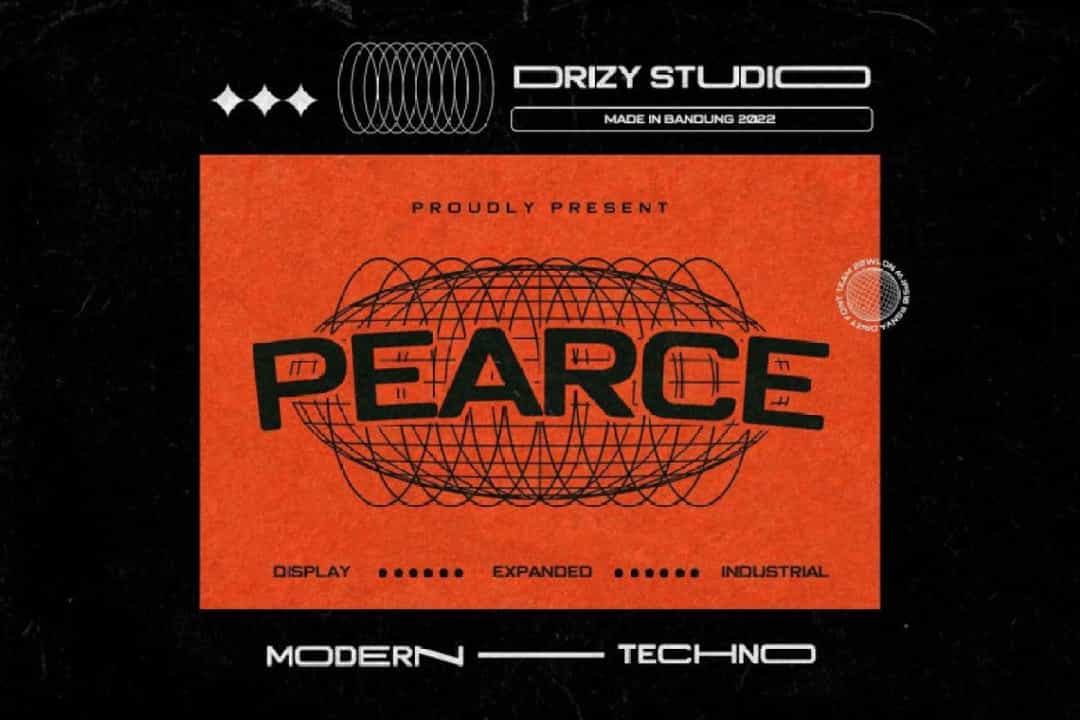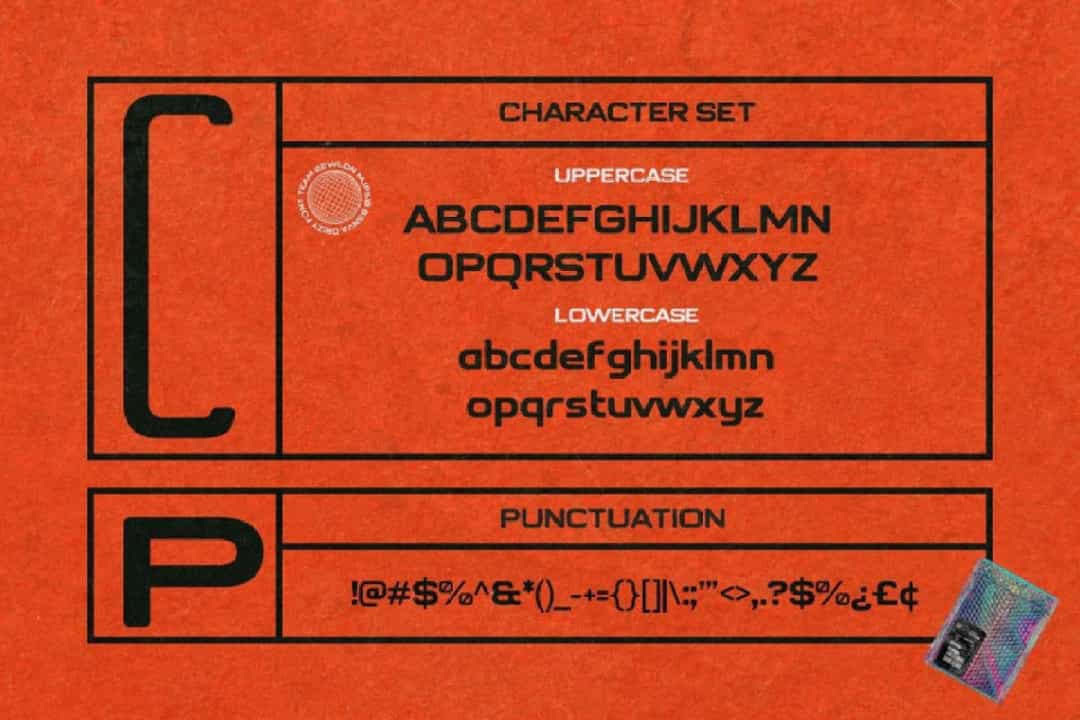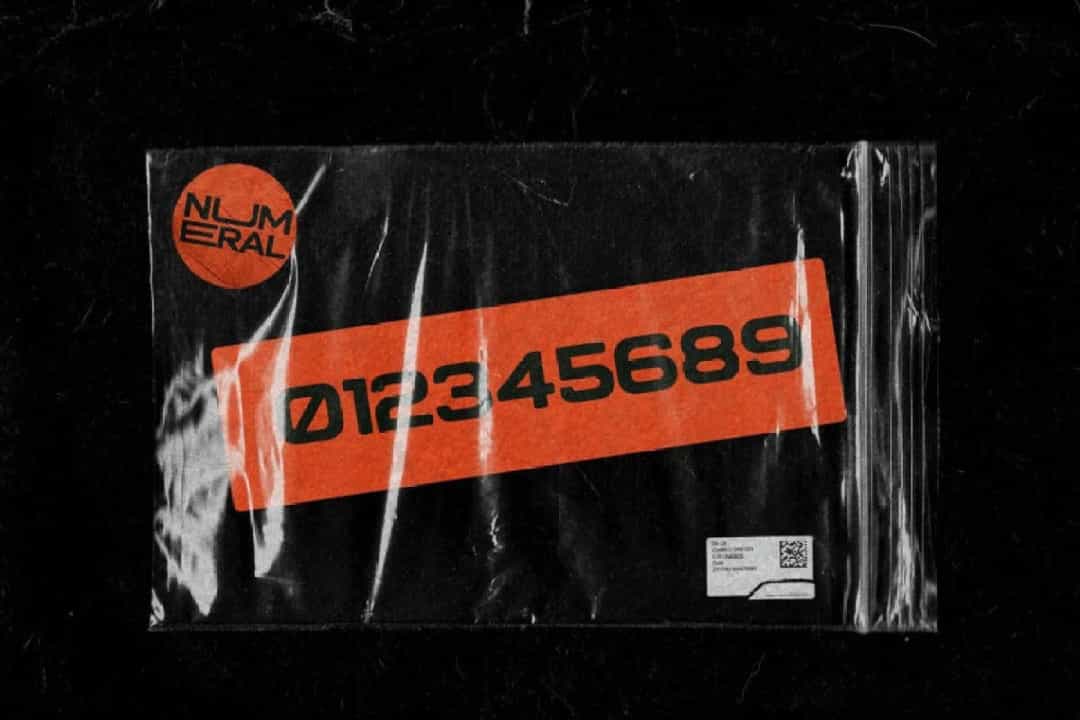
Pearce Sans Serif Font is designed by Drizy Studio to make a statement and exude confidence. Perfect for logos, social media accounts and movie titles or books titles as well as short or long texts alike; Pearce stands out against competitors with its industrial vibe and is suitable as primary text font.